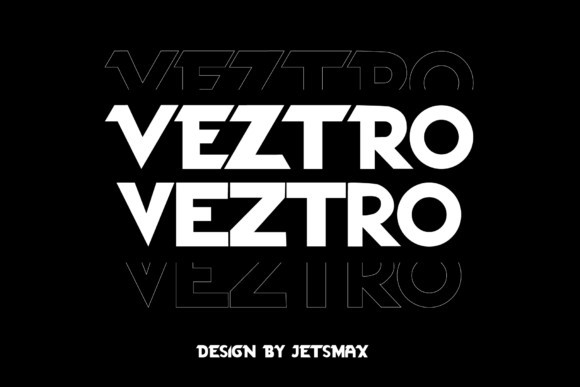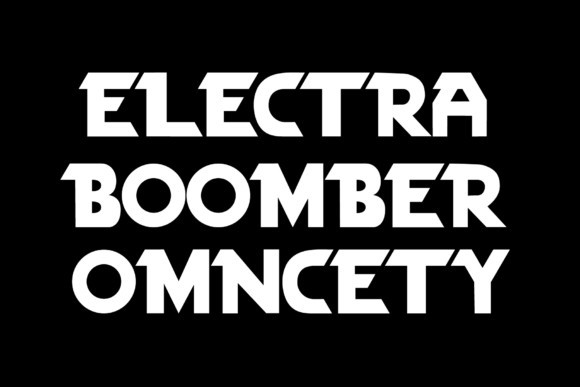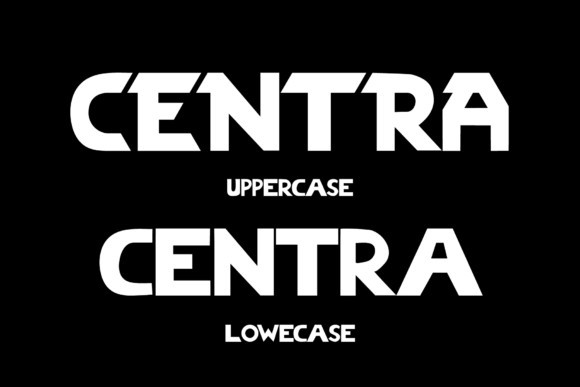
Veztro Font
Veztro is a modern display font with a dash of futuristic touch around the edges. If you wished for your projects to look more upbeat, then Veztro is your answer! It is PUA encoded and compatible with tools such as Adobe Illustrator, Photoshop, even Microsoft Word.